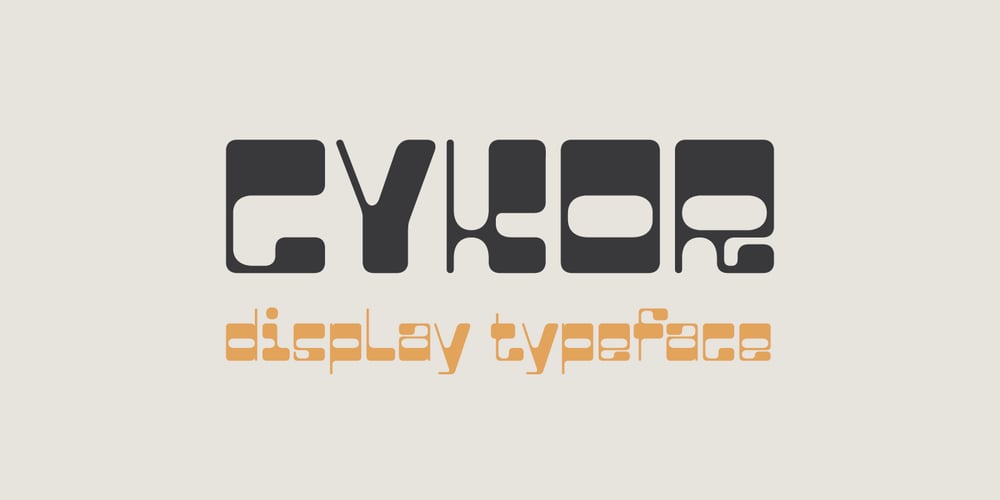
Cykor
Cykor font
Cykor Font Family was designed by Kacper Janusiak and published by K94 Studio. Cykor contains 1 styles and family package options. Cykor is a display typeface with reversed contrast inspired by typography of the late 70s designed in 2020 by Kacper Janusiak.